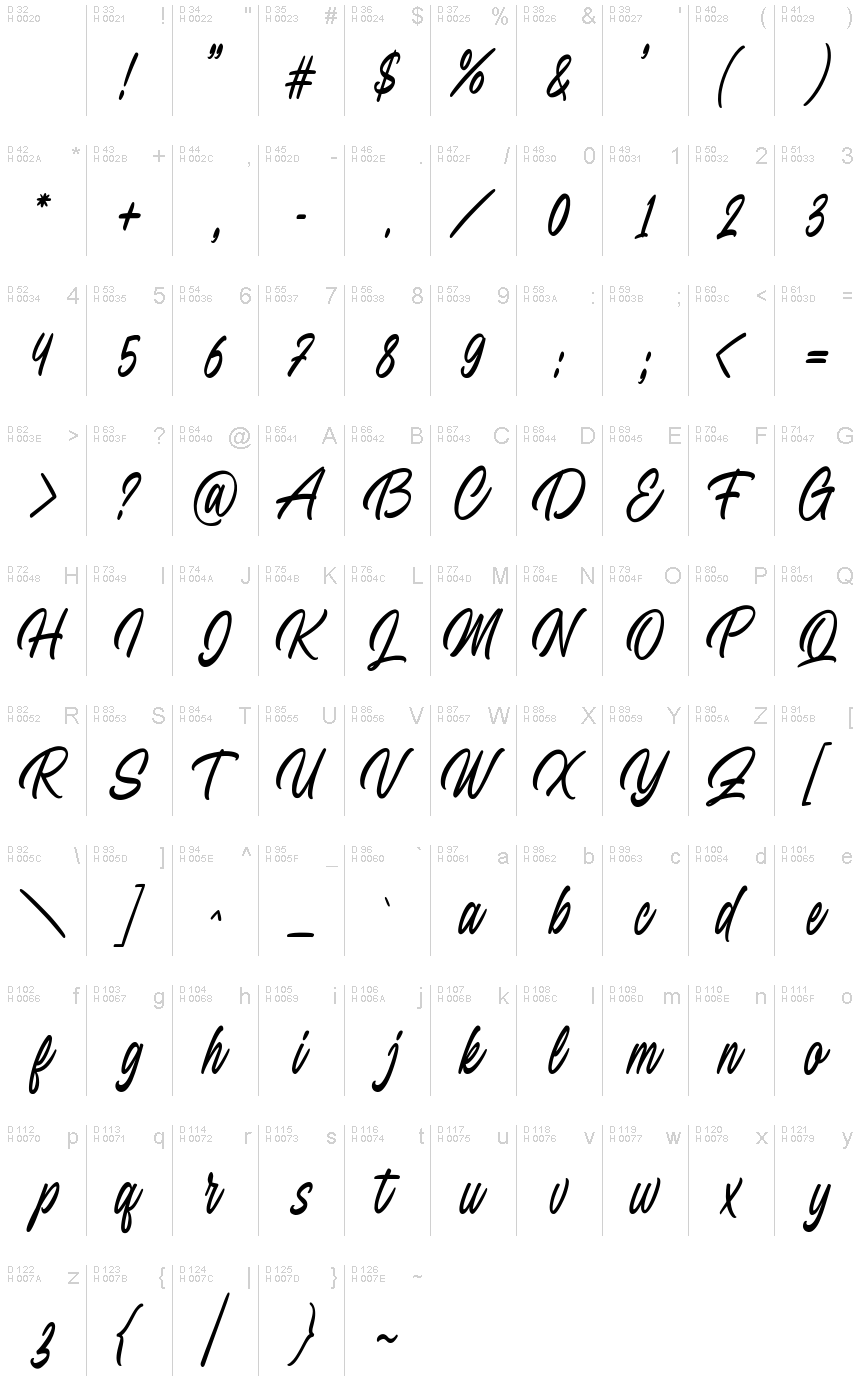
Coastal Midnight Regular
Coastal Midnight font, designed by Damarletter Studios, exudes a captivating handwritten charm with its retro flair. The stylish, flowing letters invite warmth and nostalgia, expertly balancing personality and elegance. Its condensed form adds a touch of sophistication while allowing for striking legibility, making it an ideal choice for modern design projects.
Visually appealing, Coastal Midnight's unique character shapes create an engaging rhythm that draws the eye. This font shines in diverse contexts—from charming café menus and vintage branding to inviting event invitations and playful signage. Whether aiming for a laid-back atmosphere or a touch of whimsy, Coastal Midnight offers an artistic edge that elevates any creative endeavor effortlessly.